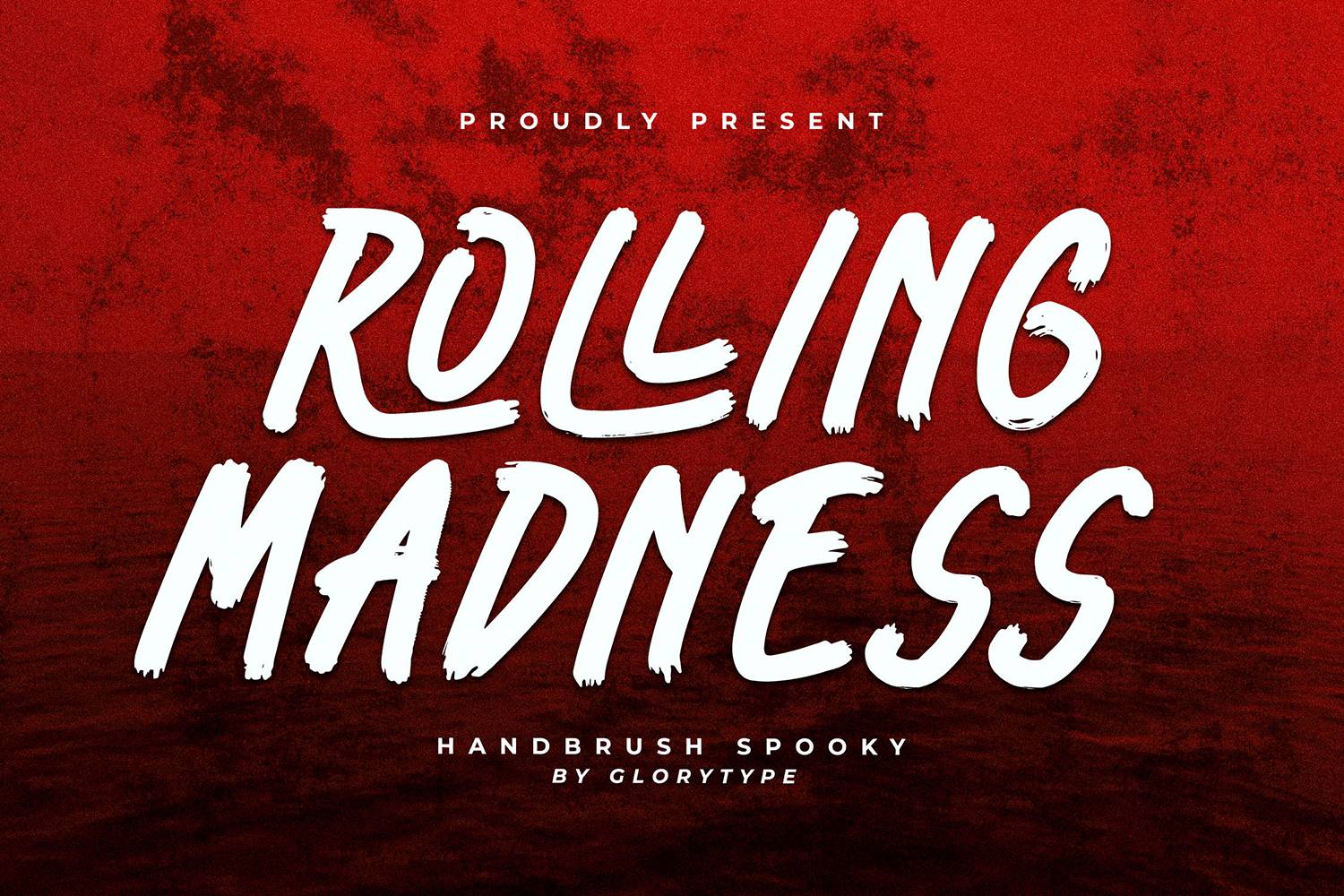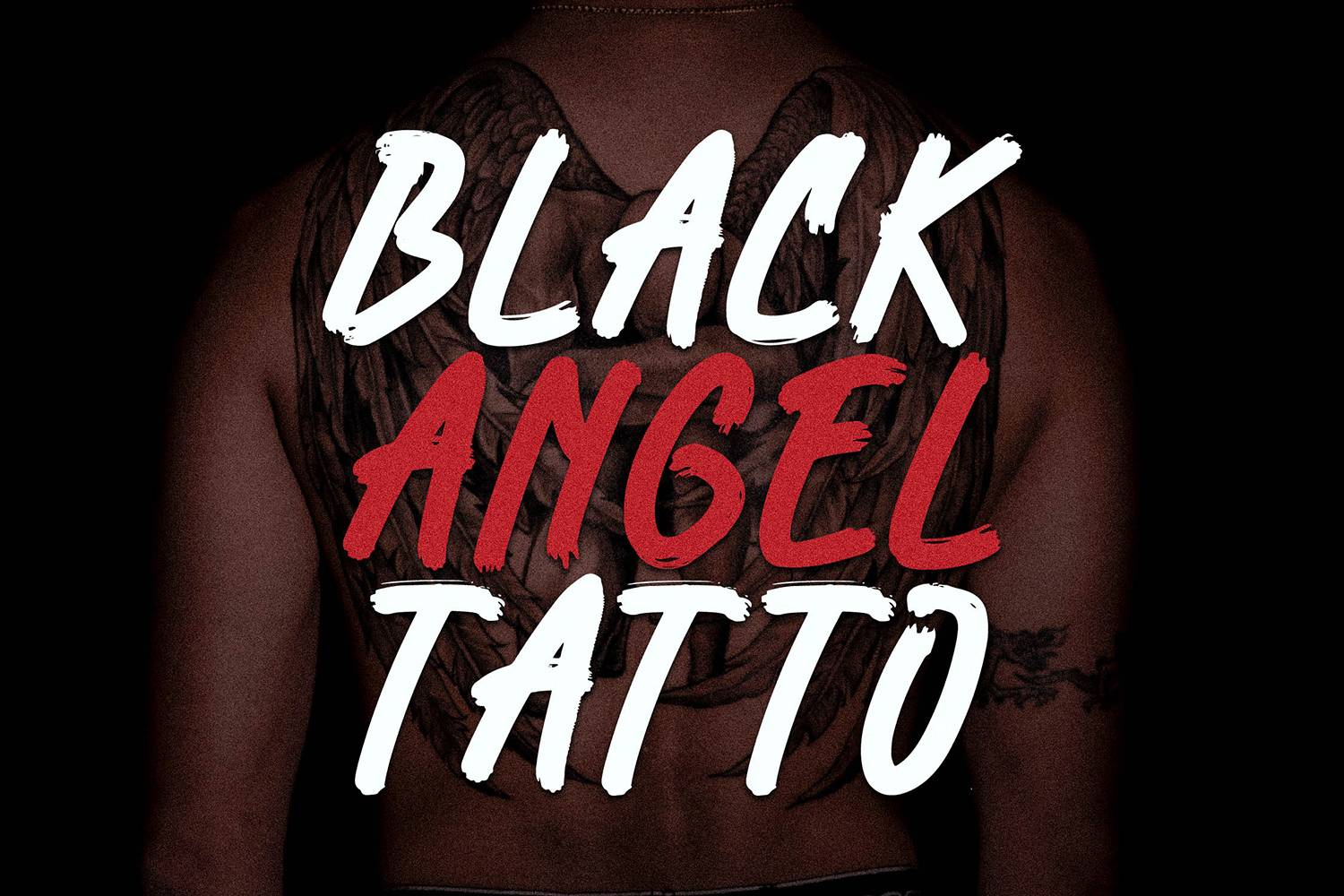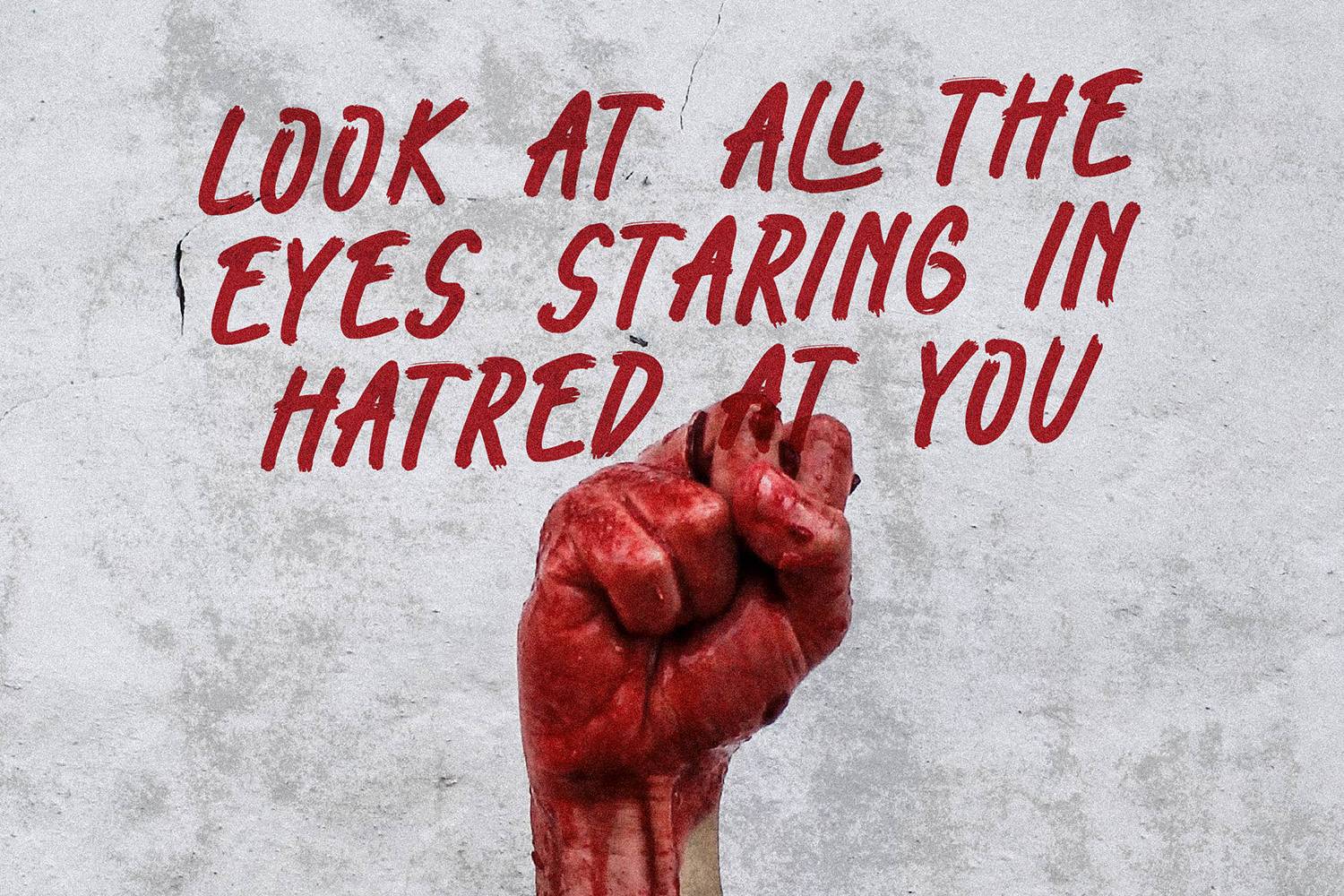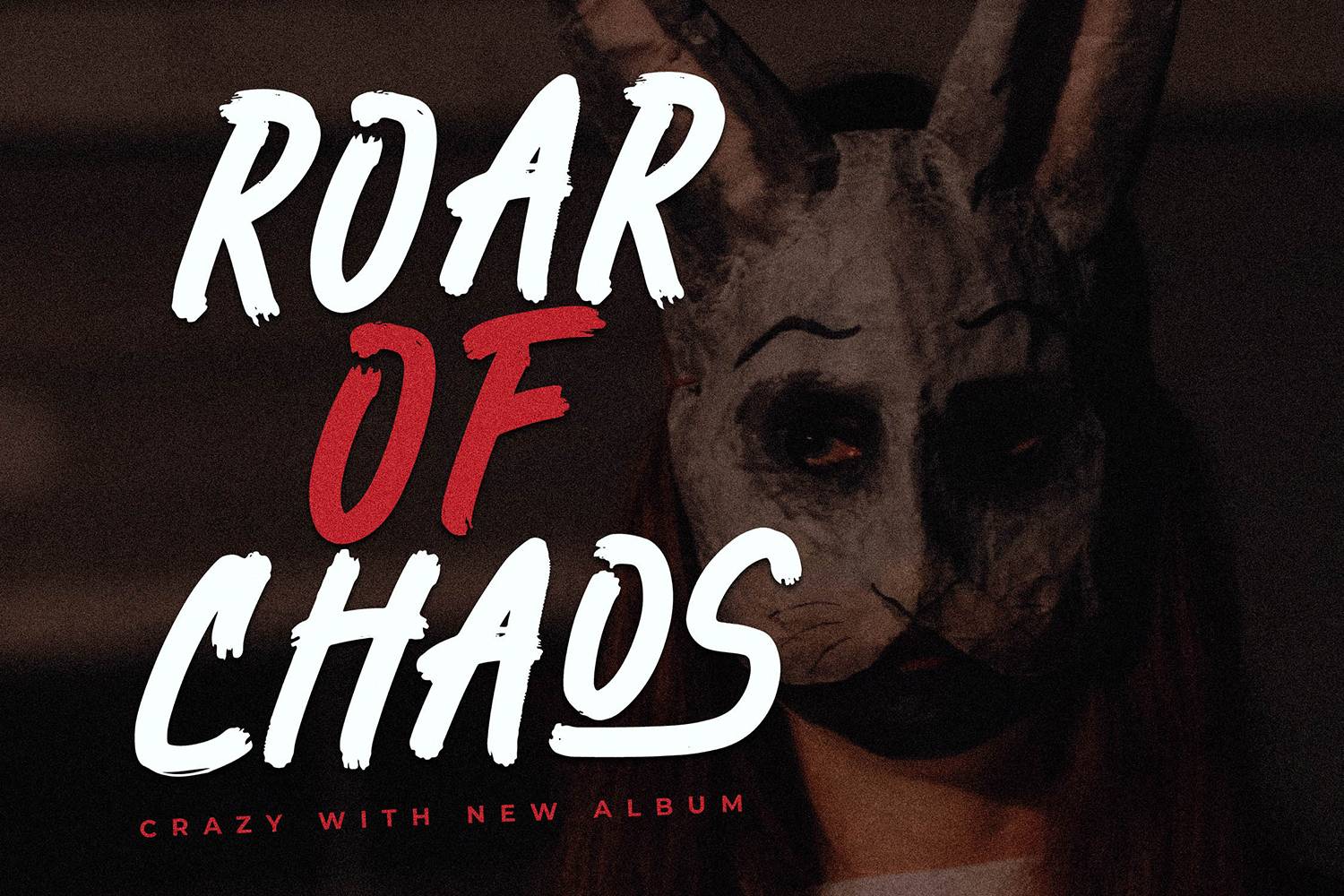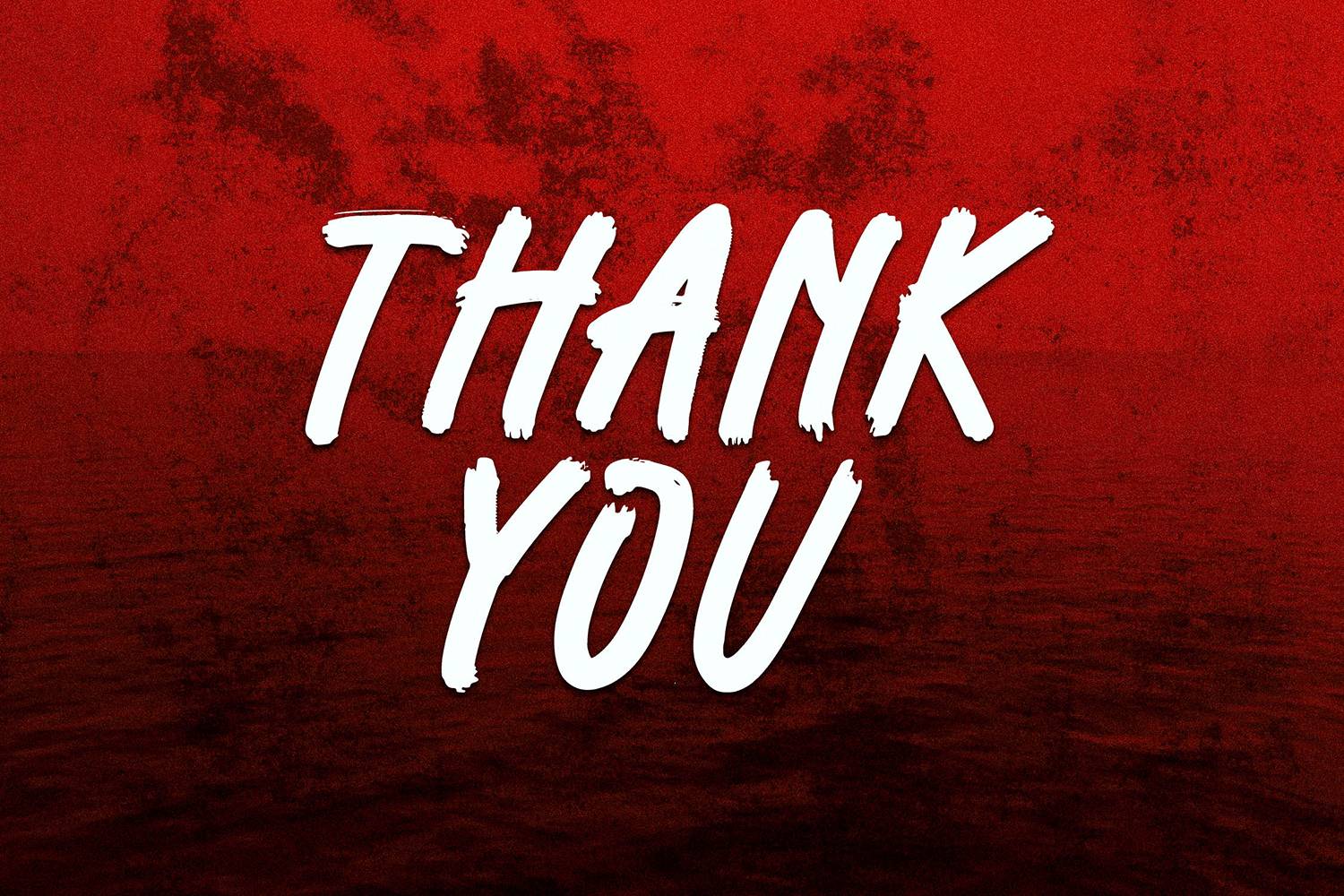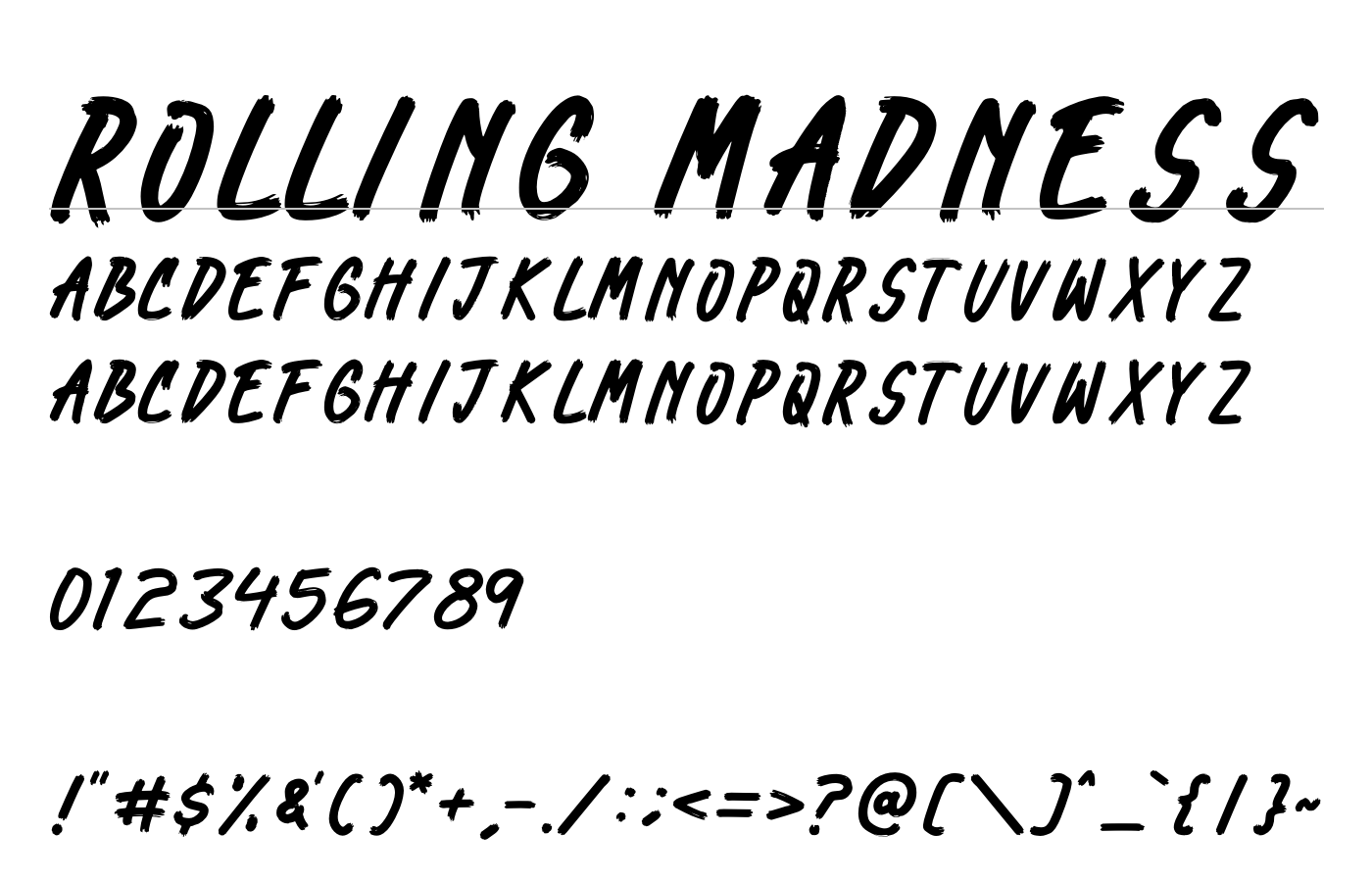
Rolling Madness is an energetic, brush-style sans serif font with a casual, hand-painted feel. Its bold weight and dynamic, slightly irregular strokes create a lively and informal personality, making it perfect for expressive headlines, posters, and branding that want to convey creativity and spontaneity. This font works well where a bold, artistic touch is needed to grab attention and add a sense of movement and fun.
Rolling Madness Font
About Rolling Madness Font